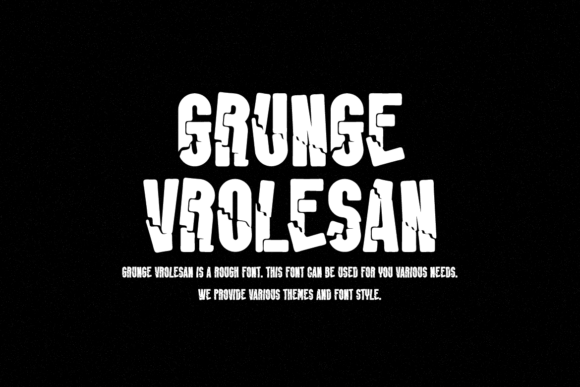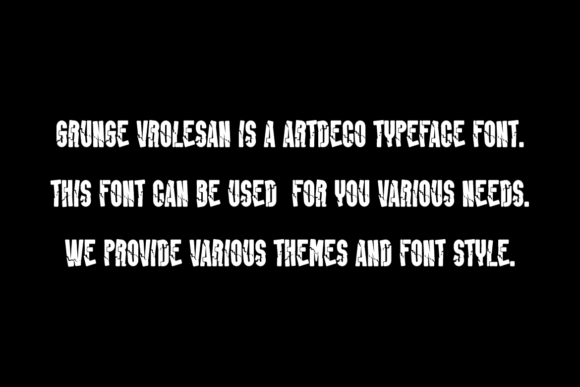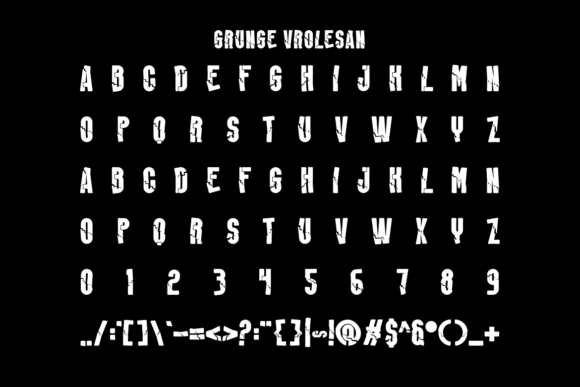
Introduction to Grunge Vrolesan Font
Grunge Vrolesan is a unique font that combines art deco style with a cracked, weathered look.
It has bold, geometric shapes typical of art deco but features rough edges and distressed textures, giving it a vintage and edgy feel This font is great for designs that want to evoke a retro, artistic vibe.
Key Features of Grunge Vrolesan Font